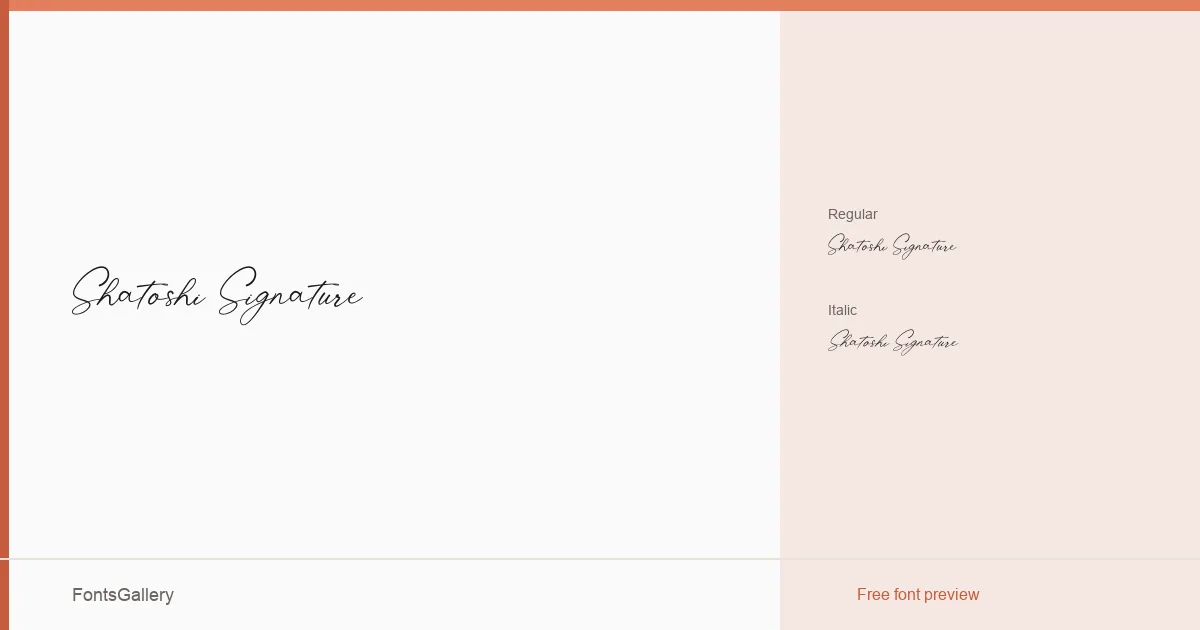
About Shatoshi Signature Font
Shatoshi Signature is a beautifully crafted script typeface designed by Heru Utama Putra, exuding an air of elegance, romance, and timeless classical charm. With its flowing letterforms and expressive character, it brings a refined personal touch to any design project. This font is perfectly suited for those seeking a sophisticated, handcrafted aesthetic.
True to its script category, Shatoshi Signature features gracefully sweeping strokes and fluid connections between letters that evoke a sense of romantic elegance. Its classic sensibility is reflected in the carefully balanced curves and natural rhythm of each letterform, lending an authentic signature-like quality to the type. The overall composition strikes a harmonious balance between ornate detail and legible grace.
Shatoshi Signature shines in applications such as wedding stationery, invitation cards, greeting cards, certificates, and social media graphics where an elegant and heartfelt tone is desired. Its romantic character makes it an ideal choice for any project requiring a personal, celebratory touch. Pair it with Aresink for a complementary handcrafted feel, or with Helvetica to create a striking contrast between organic script and clean sans-serif type.